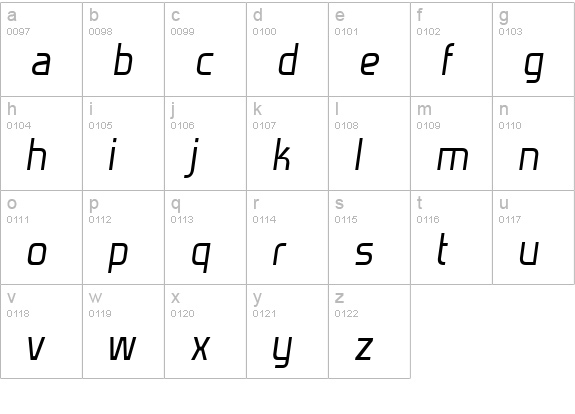
Venacti Italic Font Details
Venacti Italic is a distinctive, italic variant in the Venacti typeface family \xE2\x80\x94 well suited to design and typography projects.
Venacti Italic font is a modern and stylish typeface that combines elegance with readability. Its sleek and sophisticated design makes it perfect for a wide range of design projects, from branding to editorial layouts. The italicized version of Venacti adds a touch of flair and sophistication to any text, making it stand out on the page. What sets Venacti Italic font apart is not only its aesthetic appeal but also its versatility. Whether you're designing a logo, creating a poster, or crafting a wedding invitation, this font will elevate your project to the next level. Its clean lines and smooth curves make it easy to read, while its unique style adds a touch of personality. Best of all, Venacti Italic font is completely free to download at FontsMarket.com. This means that you can access this high-quality font without breaking the bank, making it a perfect choice for designers on a budget. So why wait? Download Venacti Italic font today and add a touch of elegance to your next design project.